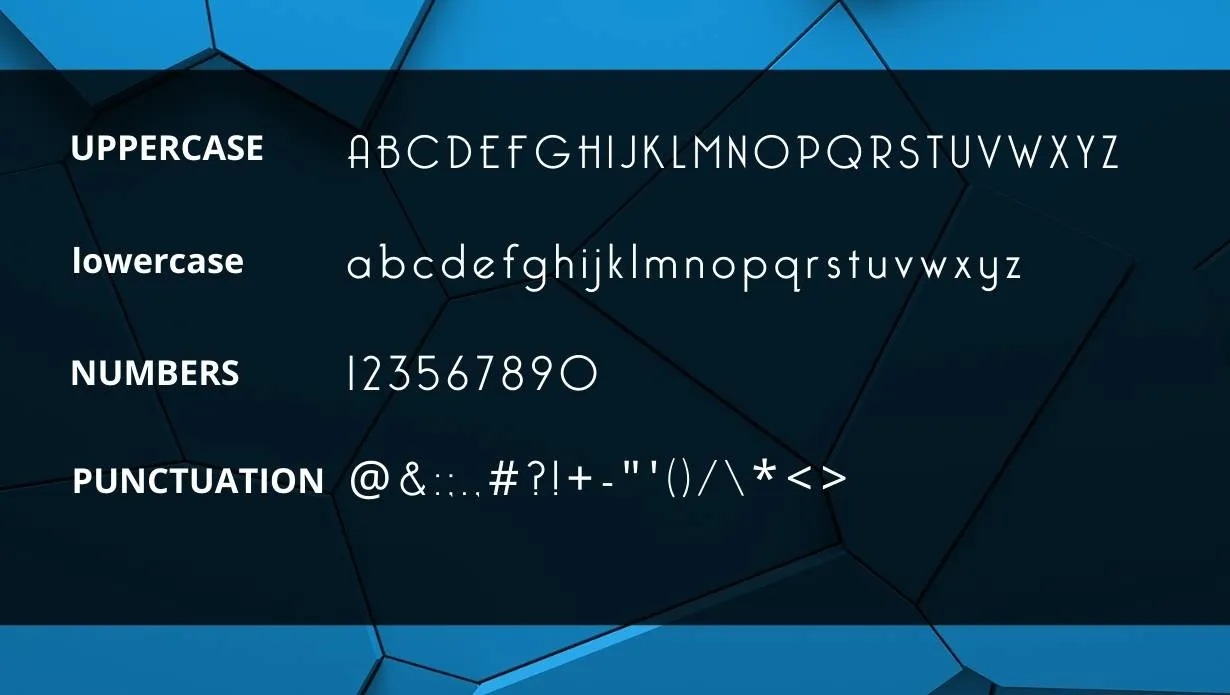
Bellerose Font is a decorative typeface designed in 1996 by David Berlow. It is named after the village of Bellerose, New York, where Berlow grew up.
The typeface family supports lots of foreign languages and seems better when you pair it with another decorative typeface like eccentric font an elegant style font with a simple attractive visual.